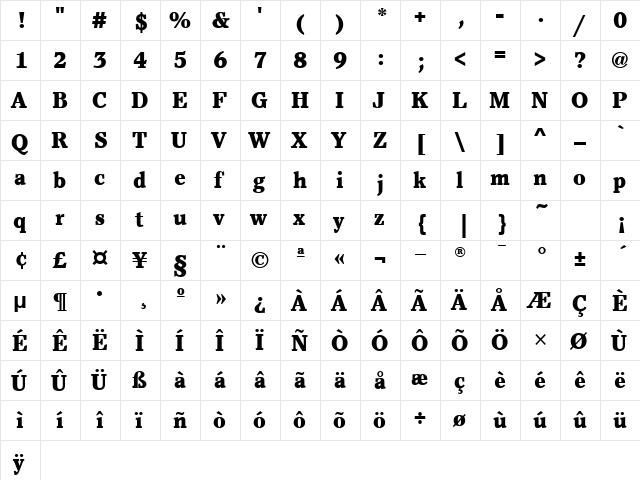
PacellaMdITCTT Black
| Foundry | International Typeface Corporation |
| Designer | Vincent Pacella |
PacellaMdITCTT takes a measured approach to typography — its balanced proportions and neutral character make it a reliable workhorse for both digital and print work.